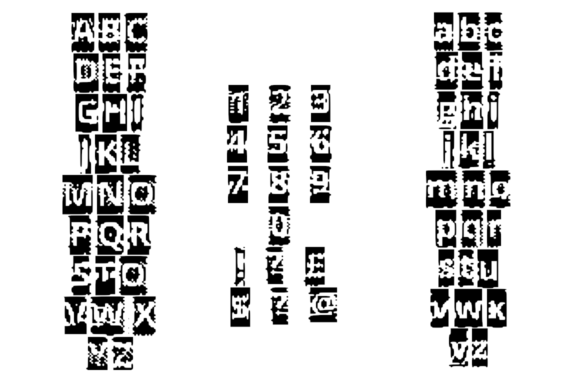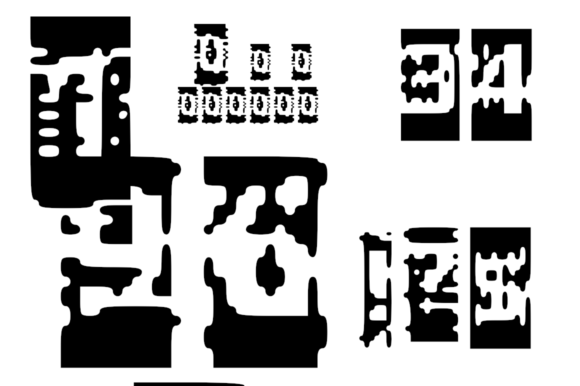
Introduction to Glitched Stamps Font
Glitched Stamps is a glitched cool display typeface that comes in both uppercase and lowercase versions.
Its distorted feel makes it an ideal font for any hacker, web nerd or glitch art lover Add it confidently to your projects, and you will love the results.
Key Features of Glitched Stamps Font